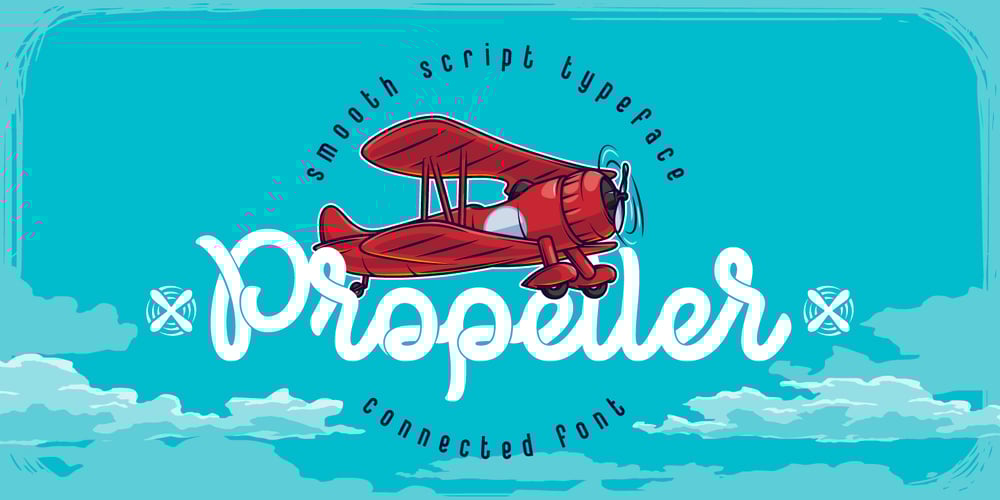
Propeller
Propeller font
Propeller Font Family was designed by Gleb Guralnyk and published by Gleb Guralnyk. Propeller contains 1 styles and family package options. Introducing a script font named “Propeller”. This font has a trendy look inspired by vintage aircraft ads. It has connected letters with smooth shape and round endings. Intersecting lines are made with a small overlay that gives a tiny volume effect.